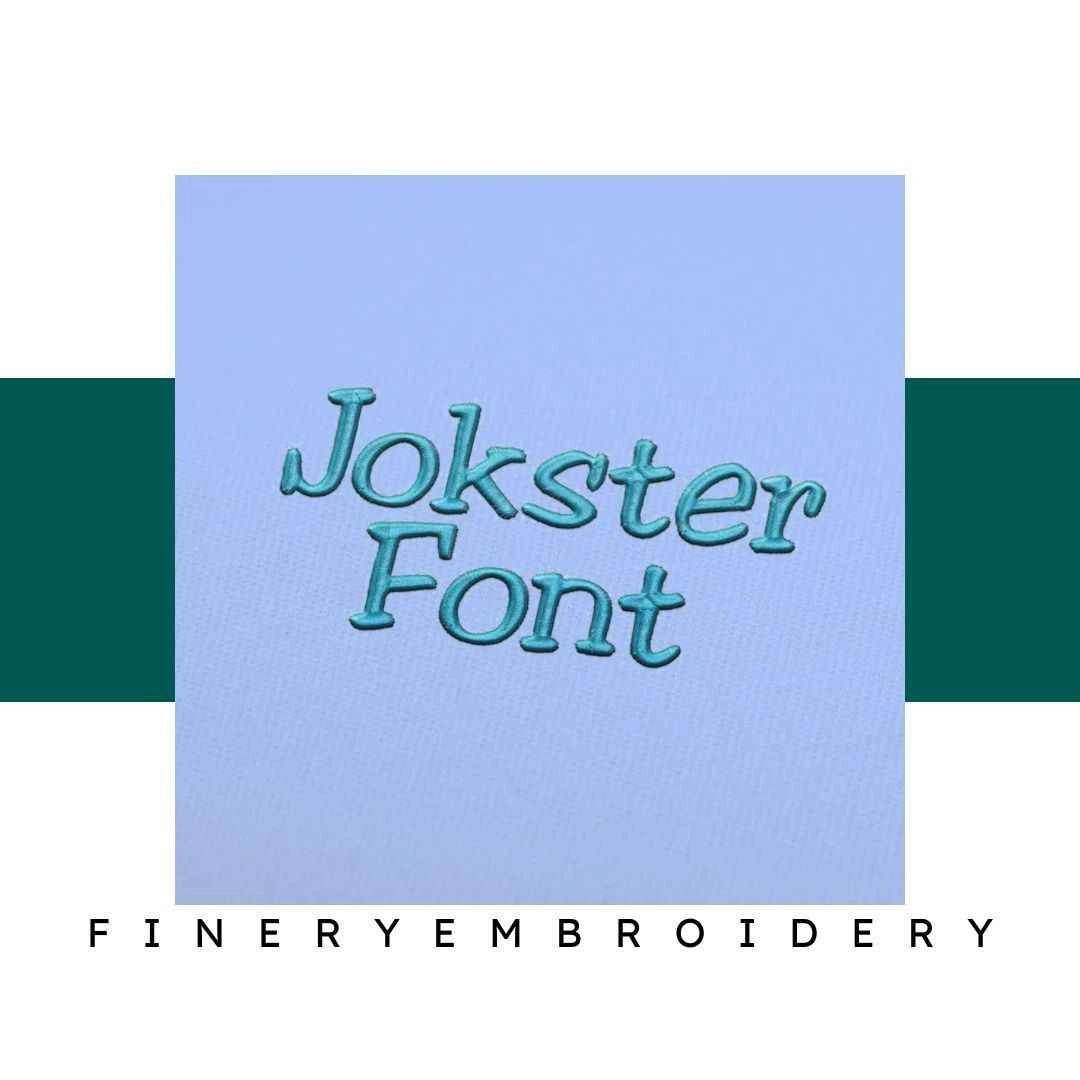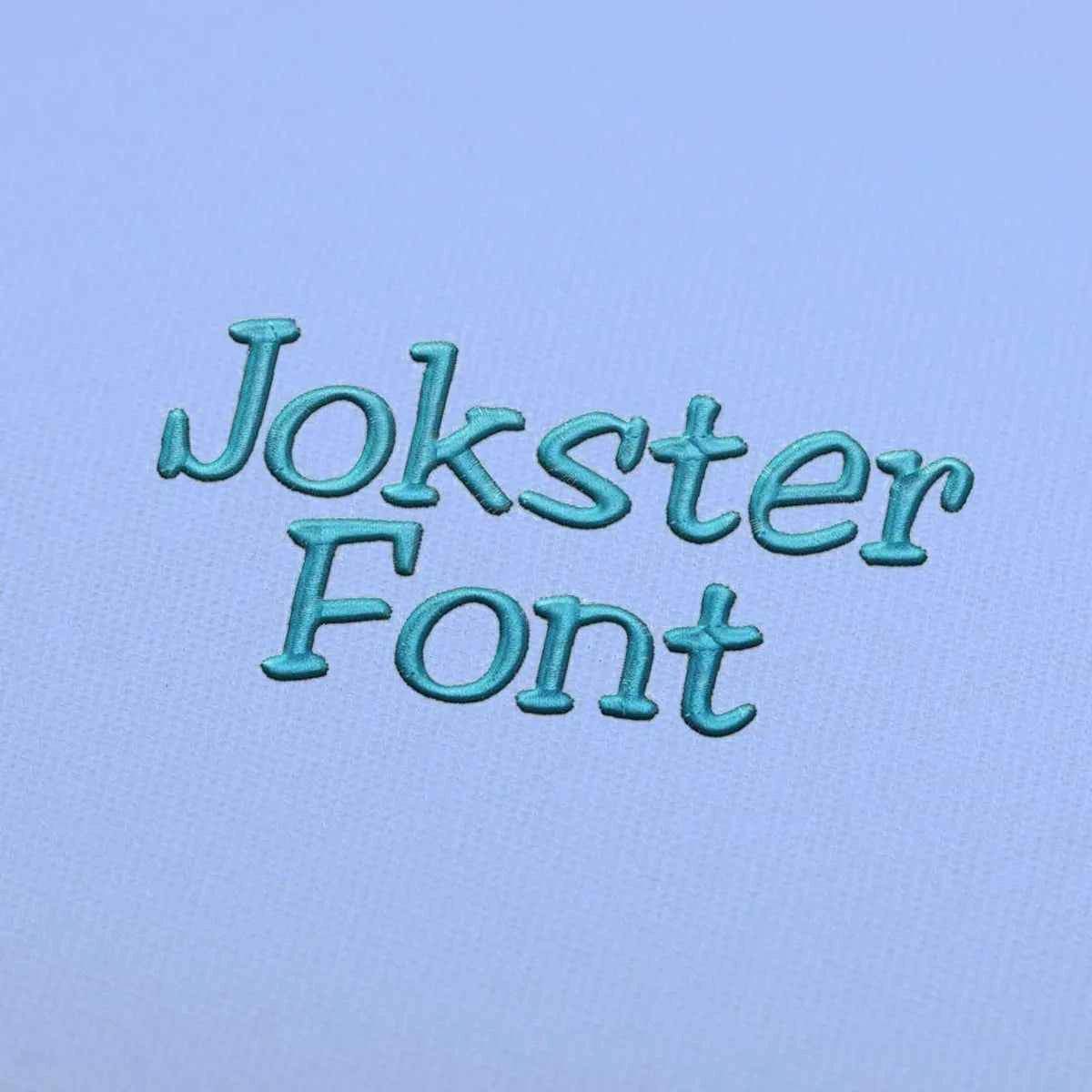
Jokster Embroidery alphabet Font Set
Elevate your embroidery creations with the stunning Jokster Embroidery Alphabet Font Set, where elegance meets exceptional craftsmanship!
Welcome to the world of creative embroidery with the Jokster Embroidery Alphabet Font Set. This exquisite collection is expertly designed to enhance your projects with remarkable detail and precision. Whether you’re a seasoned embroiderer or just starting out, this font set will add a touch of sophistication and originality to your artistic expressions.
Why You'll Love This Design
The Jokster Font Set is not only about style but also about functionality. Each character is intricately crafted to ensure flawless execution, making it ideal for any embroidery venture. The elegance of each letter will surely elevate simple pieces into extraordinary keepsakes, ensuring your work stands out with a unique flair.
Creative Applications
Imagine transforming plain fabric into personalized gifts or custom apparel with this versatile font set. From chic home decor to heartfelt presents, the Jokster Font Set adapts beautifully to various projects. You can easily explore endless possibilities, whether it's monogramming, creating unique signage, or embellishing your favorite garments.
Digitized for Passionate Embroiderers
As passionate embroiderers ourselves, we understand the joy of creating something beautiful. That's why we meticulously crafted the Jokster Font Set to integrate seamlessly into your collection. Our experience shows that this design will not only meet your expectations but exceed them, allowing you to produce stunning results every time.